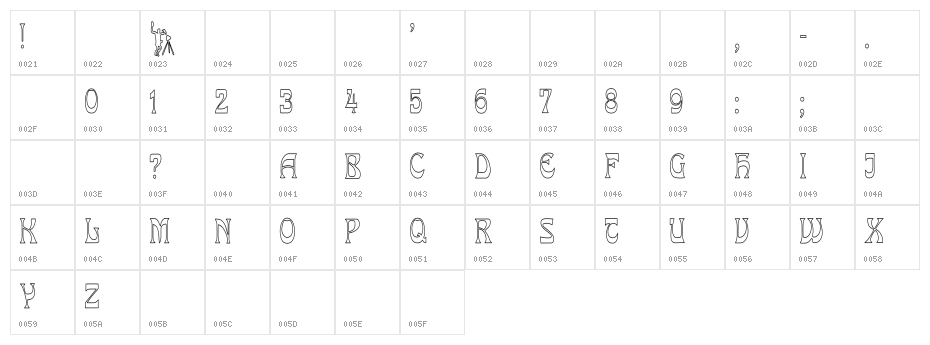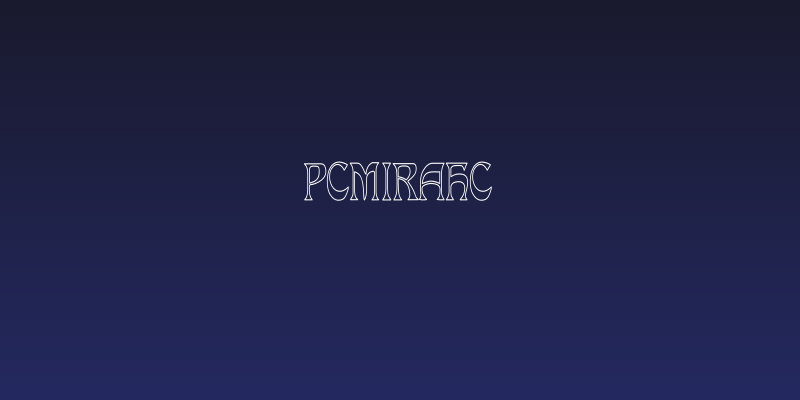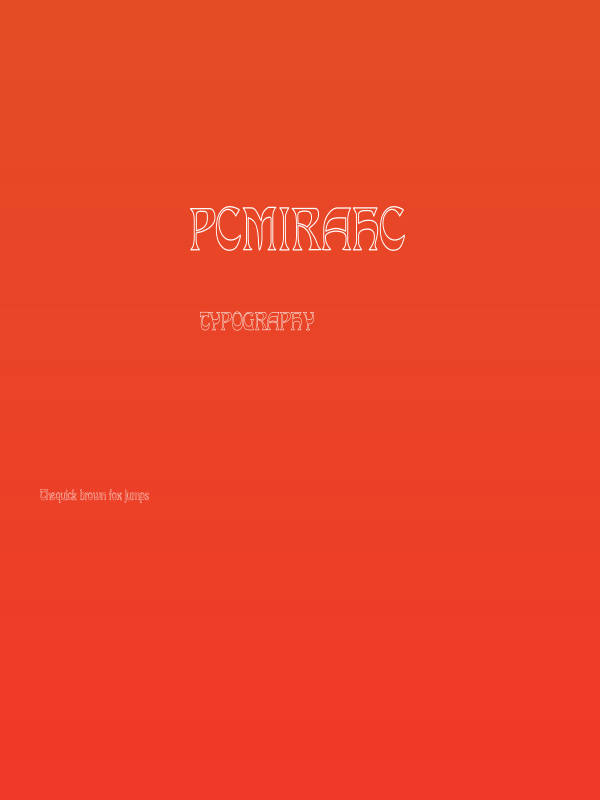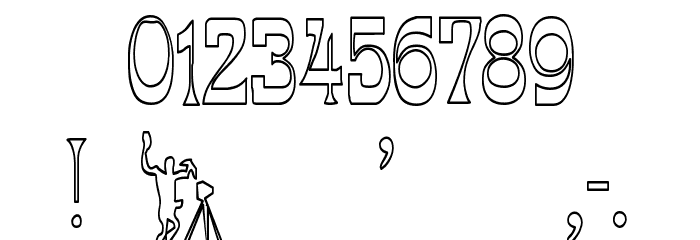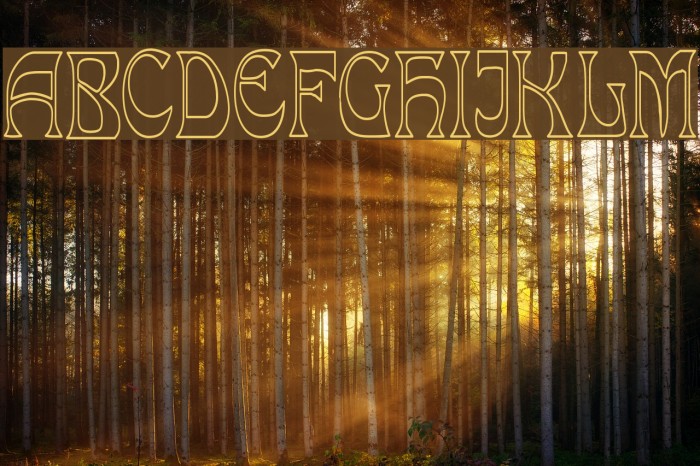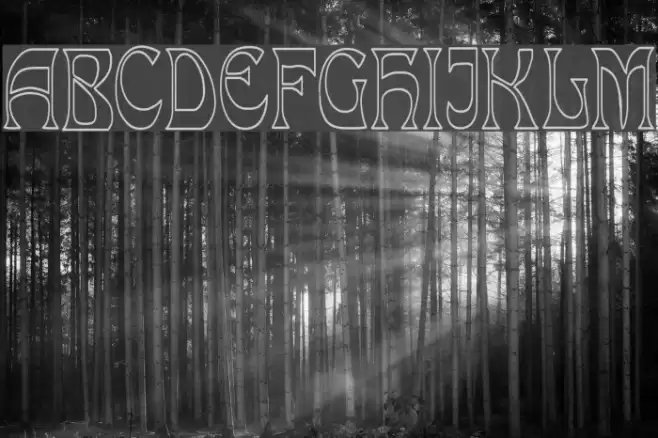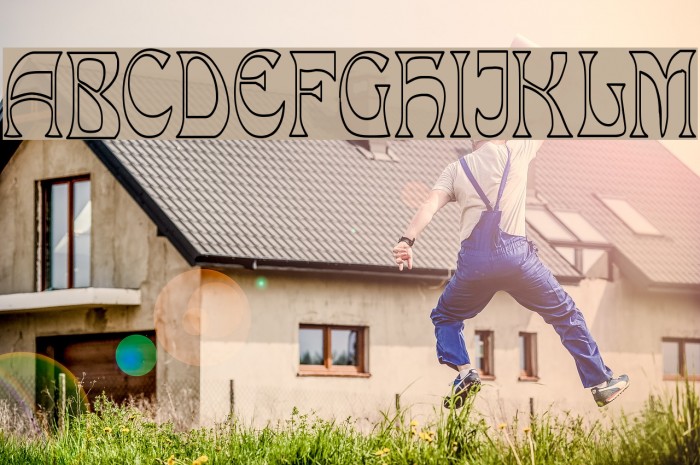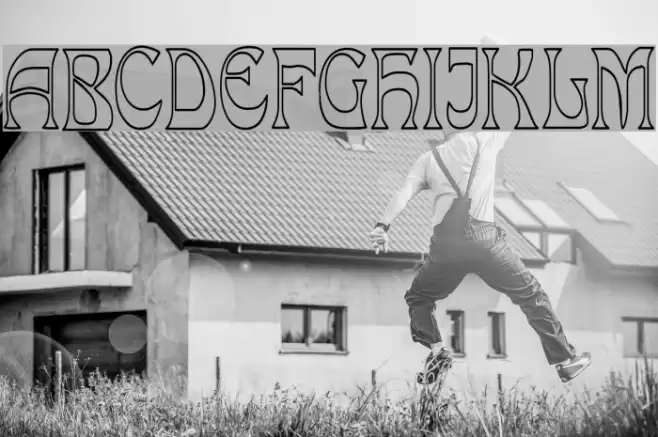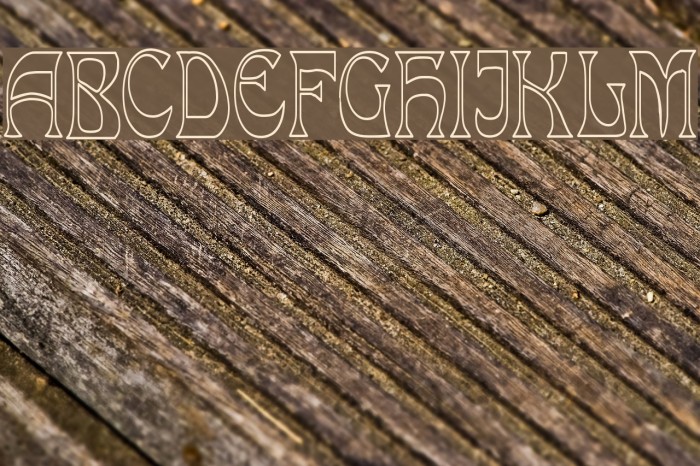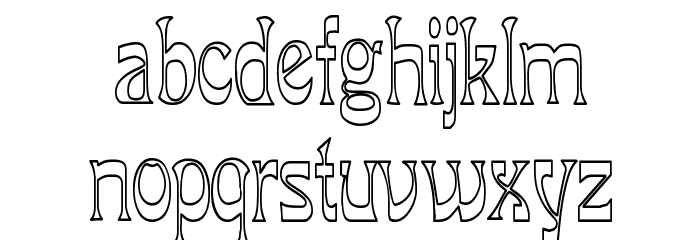
PCMiraHC Font
PCMiraHC Description
This font features a unique and decorative style with a distinct outline effect. The uppercase letters are bold and have a geometric, angular design, while the lowercase letters maintain a similar style but with a slightly softer appearance. The numerals are consistent with the overall design, offering a cohesive look. Special characters are creatively integrated, enhancing the font's artistic appeal. The font's intricate details make it stand out, suitable for projects that require a touch of elegance and creativity.
| Proposed Projects | Ideal for posters, logos, book covers, and artistic projects that require a distinctive and creative typeface. |